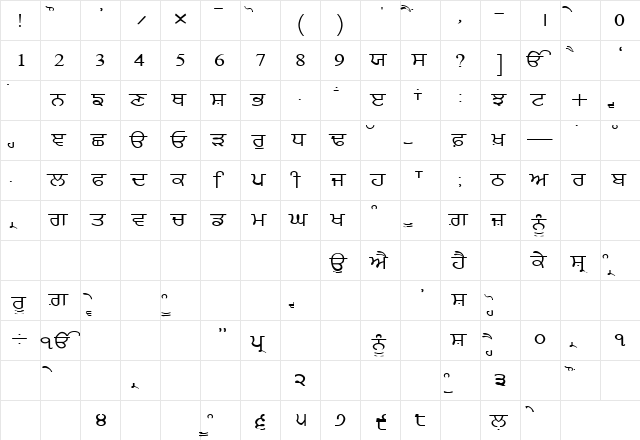
GurmukhiLys 020 Wide Normal Font Preview
GurmukhiLys 020 Wide Normal
GurmukhiLys 020 Wide Normal Font Details
Design Context for GurmukhiLys 020 Wide Typeface
GurmukhiLys 020 Wide takes a measured approach to typography — its balanced proportions and neutral character make it a reliable workhorse for both digital and print work.